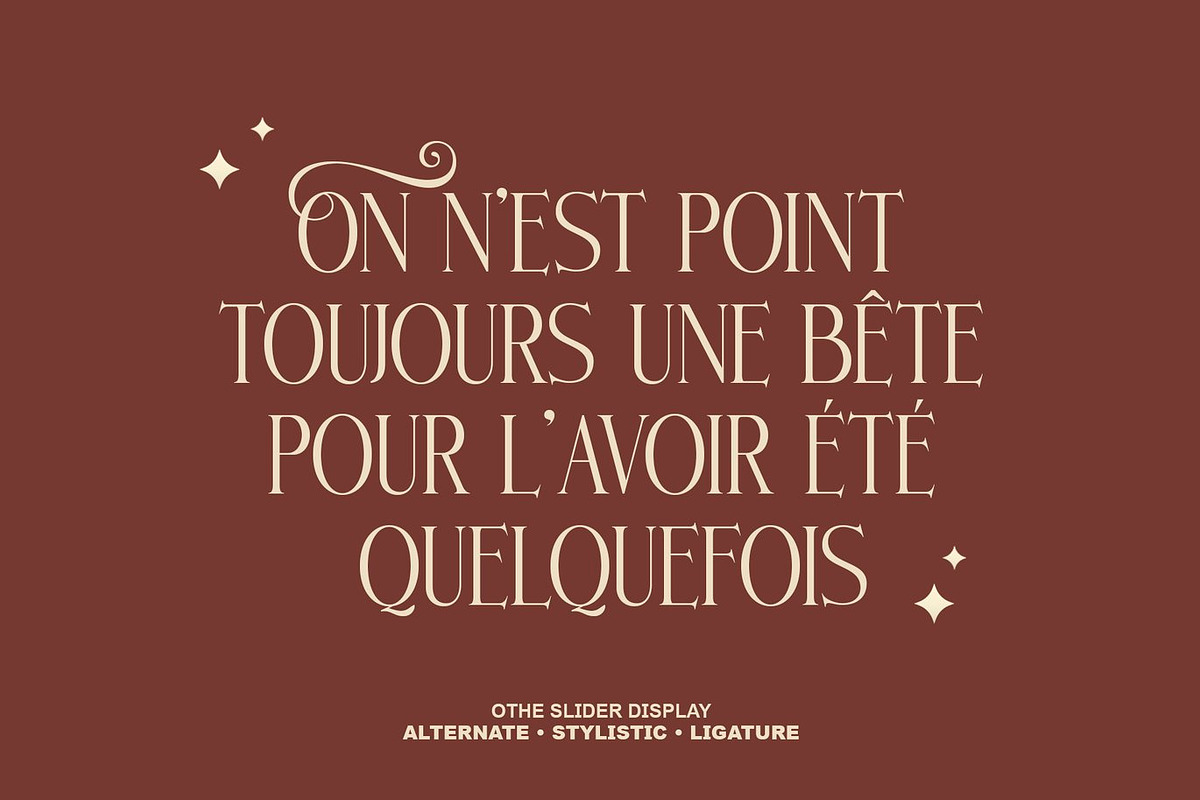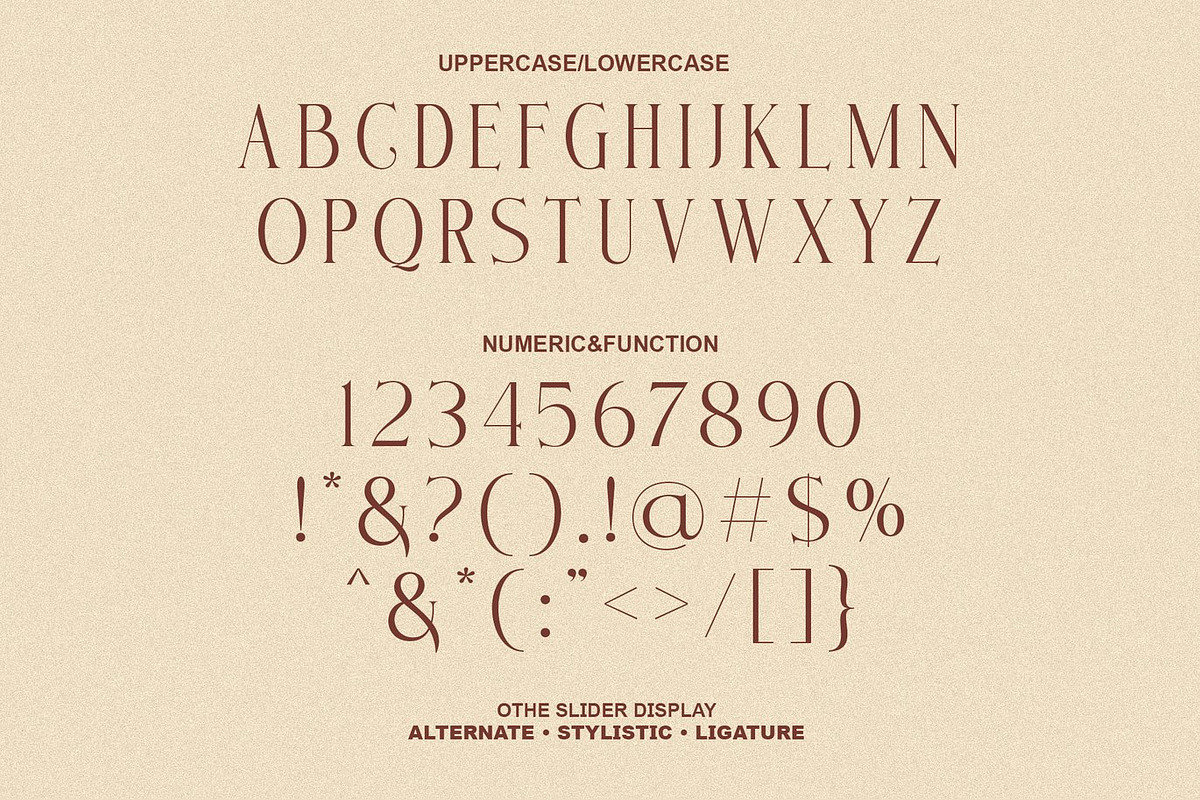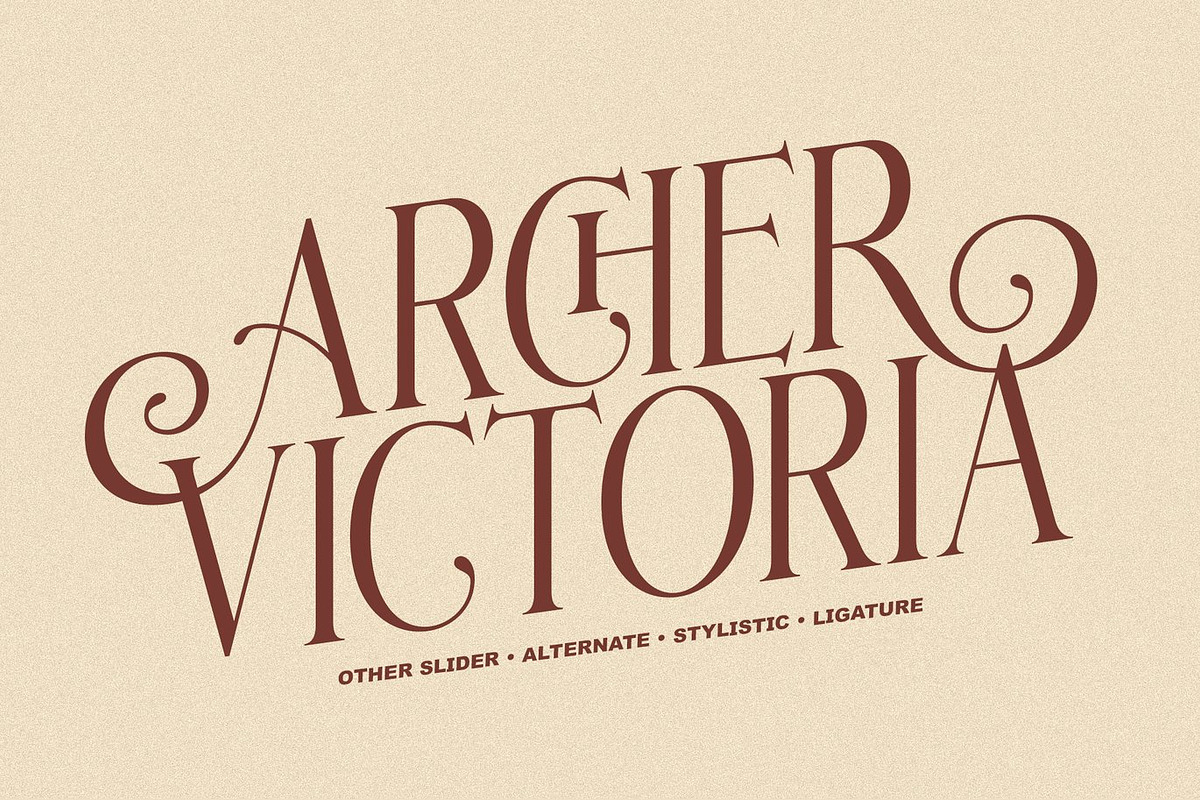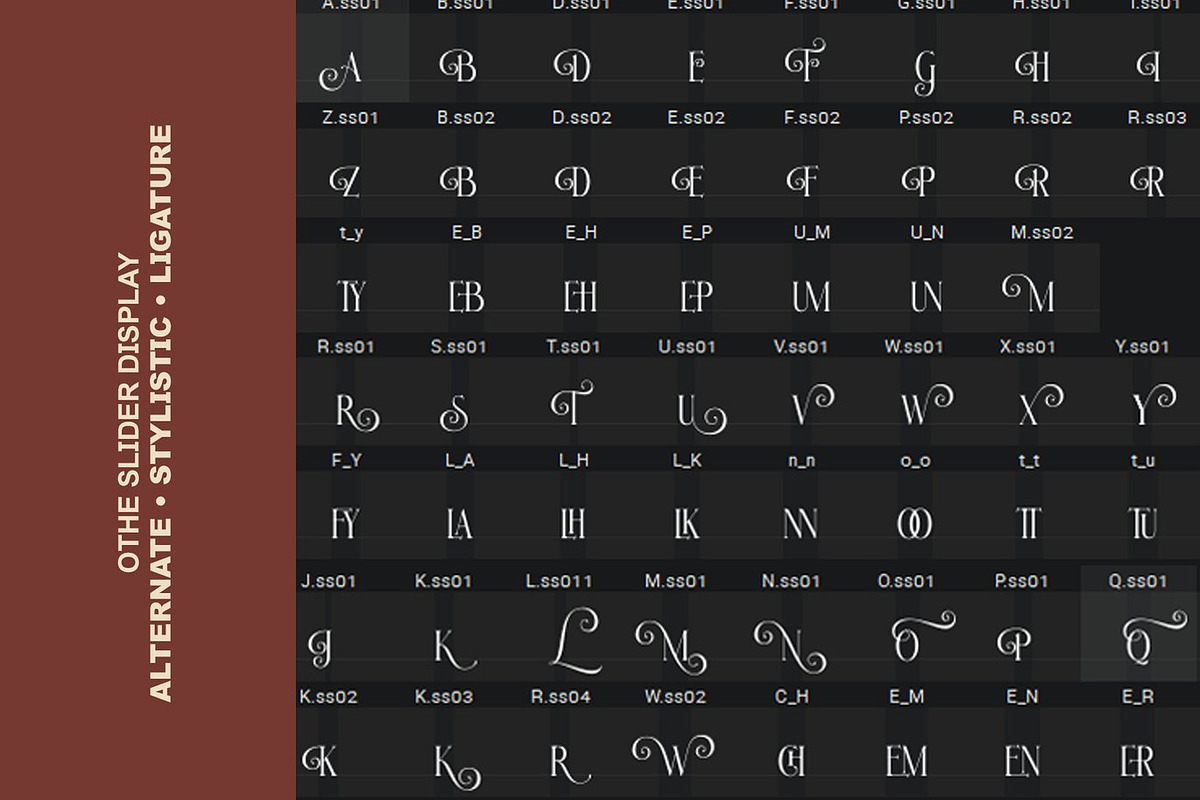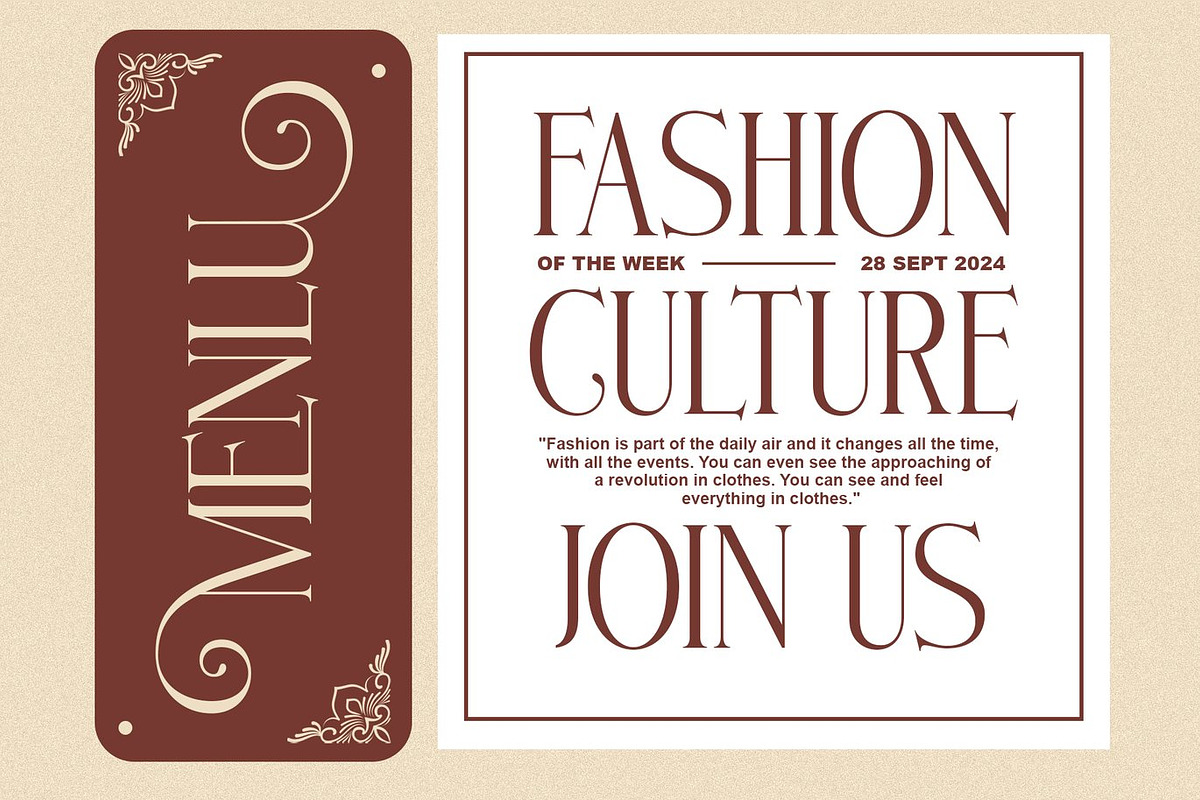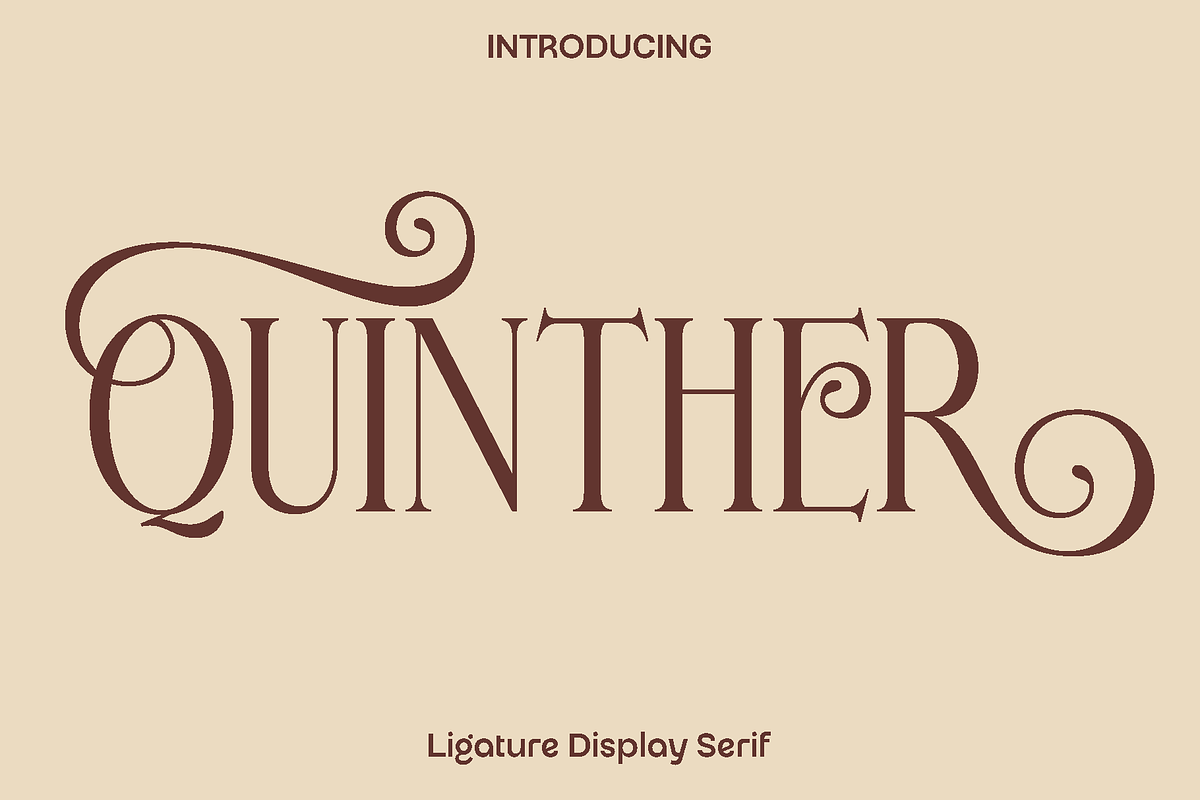
Quinther - Ligature Display Serif
Quinther is a refined modern typeface created for designers who value clarity, style, and versatility. Inspired by contemporary editorial design and timeless typography, Quinther blends clean structure with subtle character, resulting in a font that feels confident, elegant, and highly adaptable. Its balanced proportions and carefully shaped letterforms create a smooth reading rhythm, making every composition look polished and professional.
Designed to shine across both print and digital media, Quinther is perfect for books, magazines, logos, branding projects, photography overlays, inspirational quotes, blog headers, posters, and advertising campaigns. Whether you are building a strong brand identity or crafting an expressive editorial layout, Quinther delivers sophistication without losing readability. It performs beautifully in large headlines while remaining clear and functional in body text.
Quinther brings a calm yet distinctive presence to your work. Its modern aesthetic allows it to adapt seamlessly to minimalist designs, corporate branding, creative portfolios, and lifestyle visuals. The versatility of this typeface makes it an essential addition to any designer’s toolkit, offering flexibility for both elegant and contemporary projects.
Quinther Font Features:
• Uppercase and lowercase characters
• Numerals and functional punctuation
• Multilingual support
• Clean and versatile letterforms